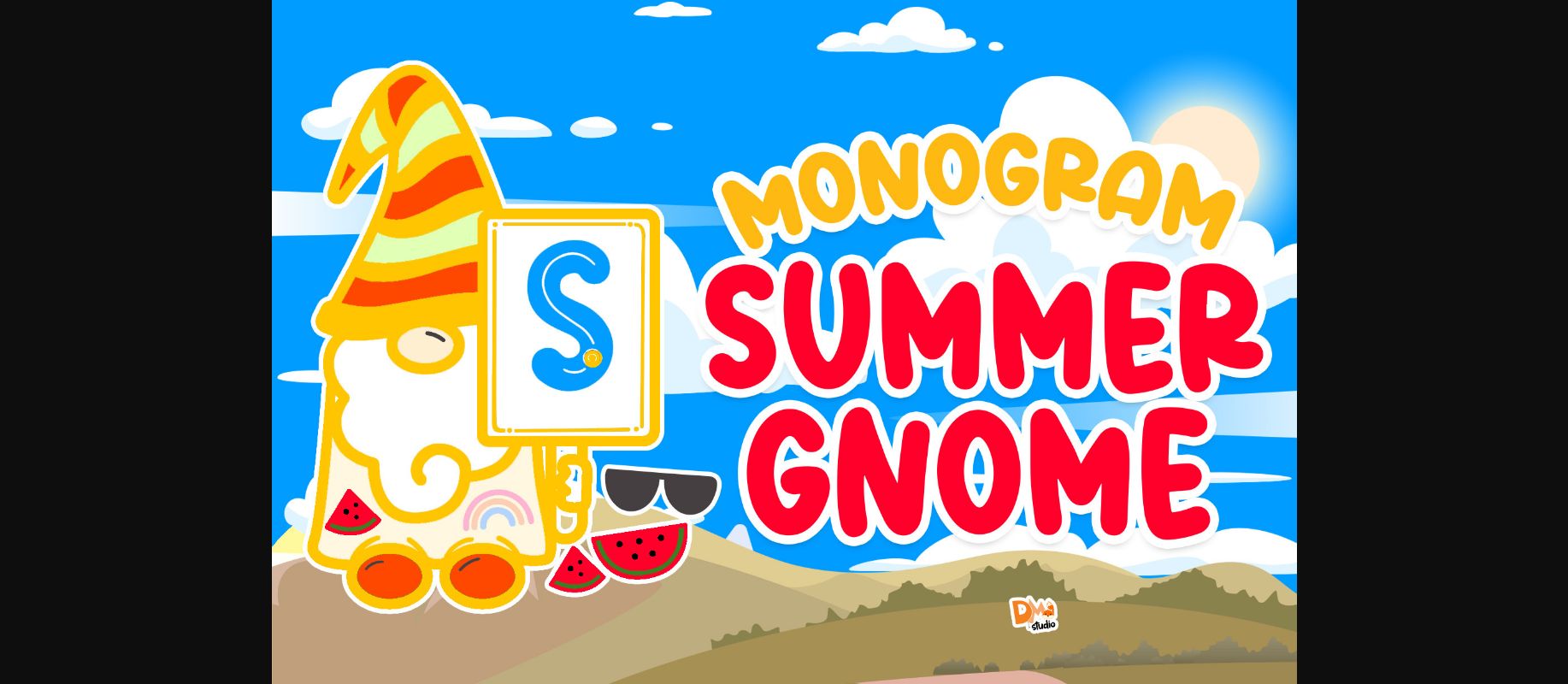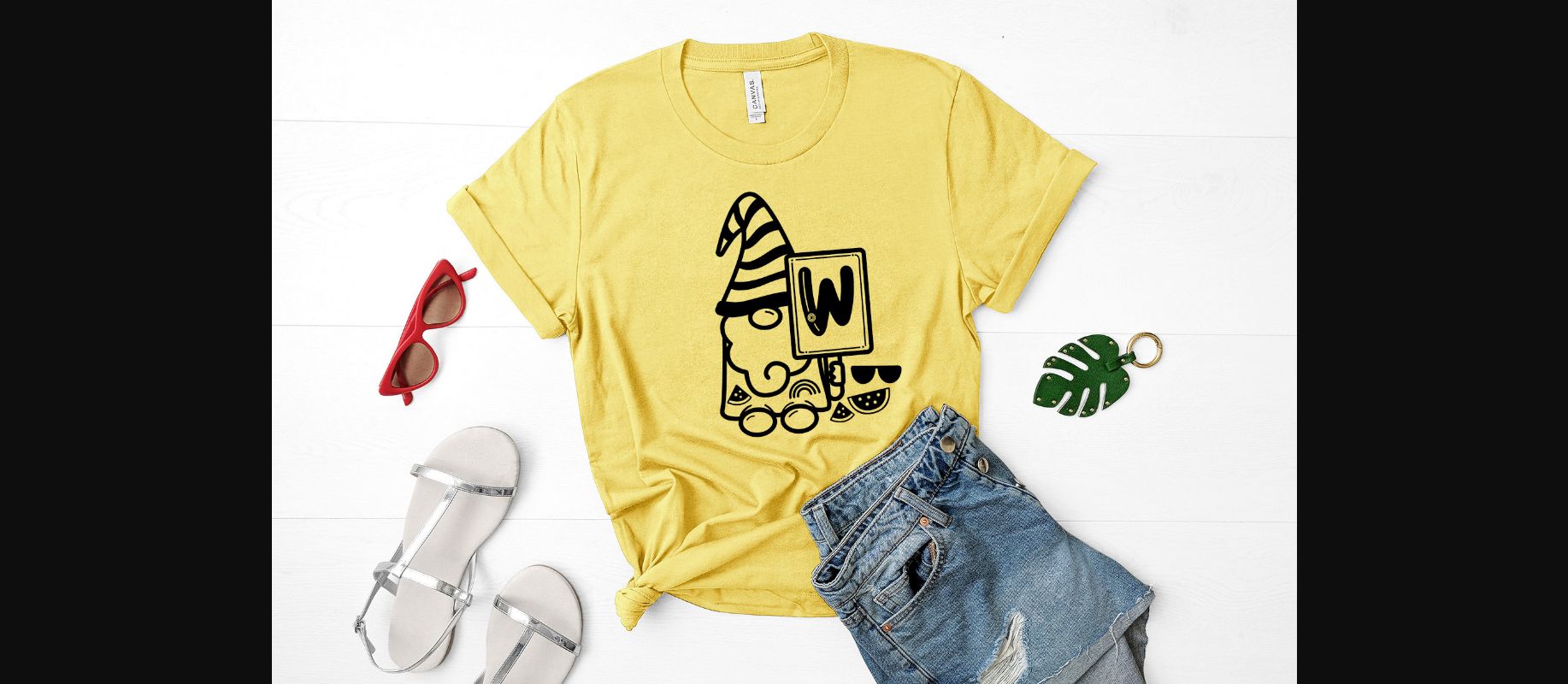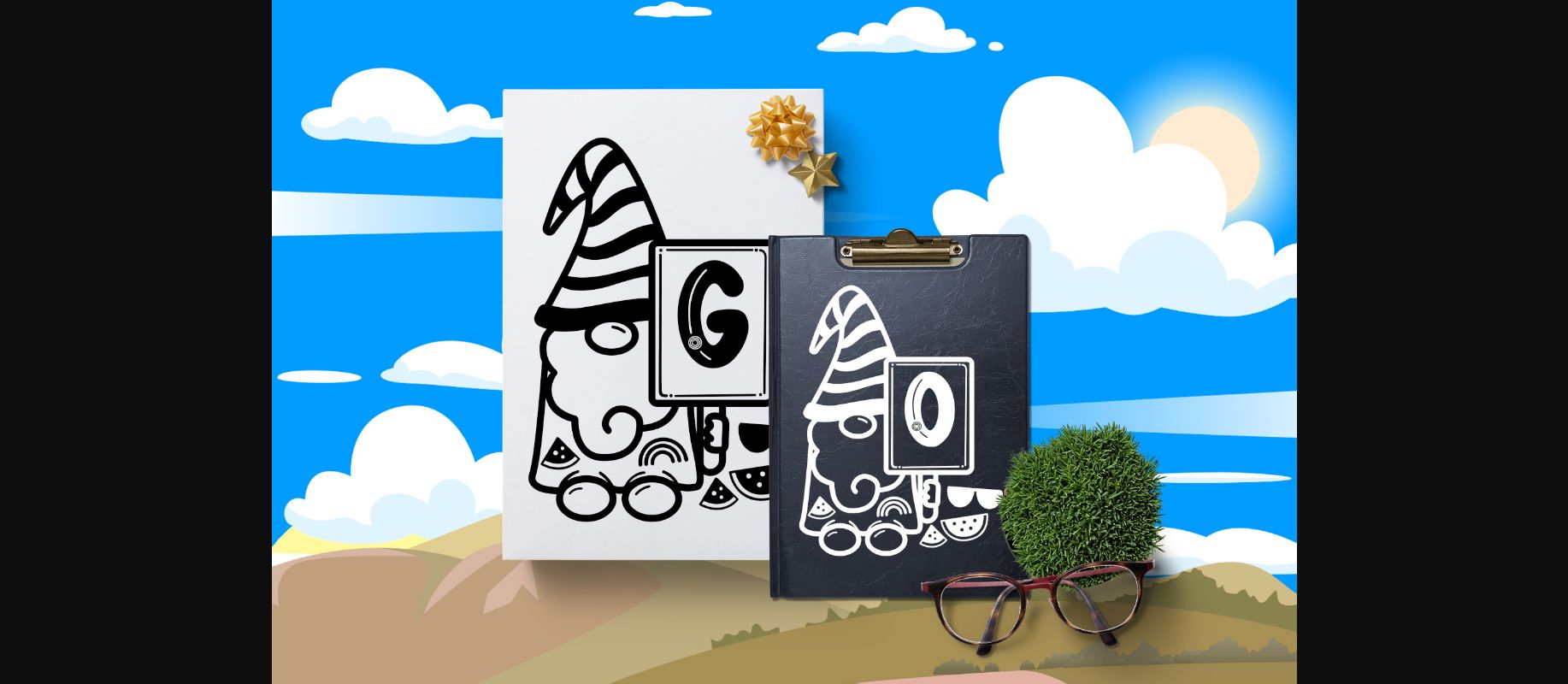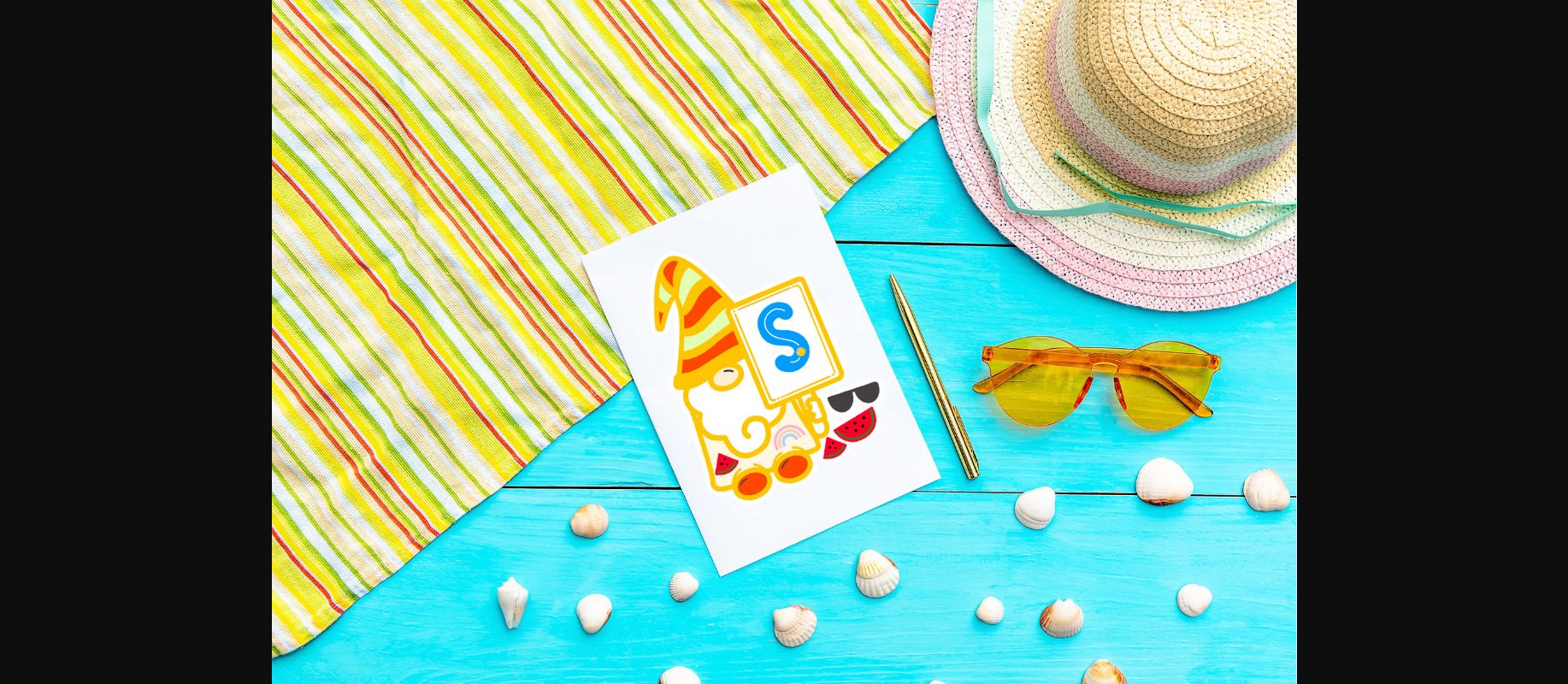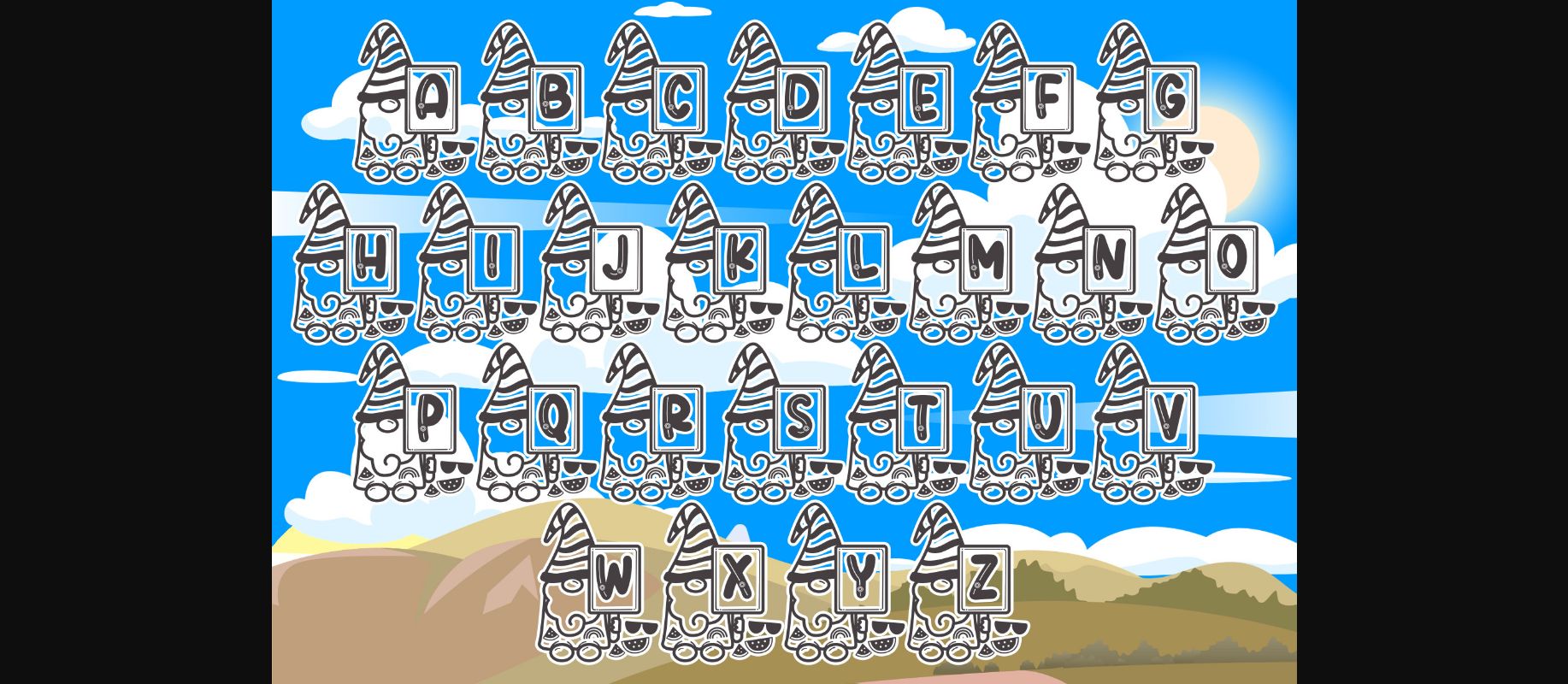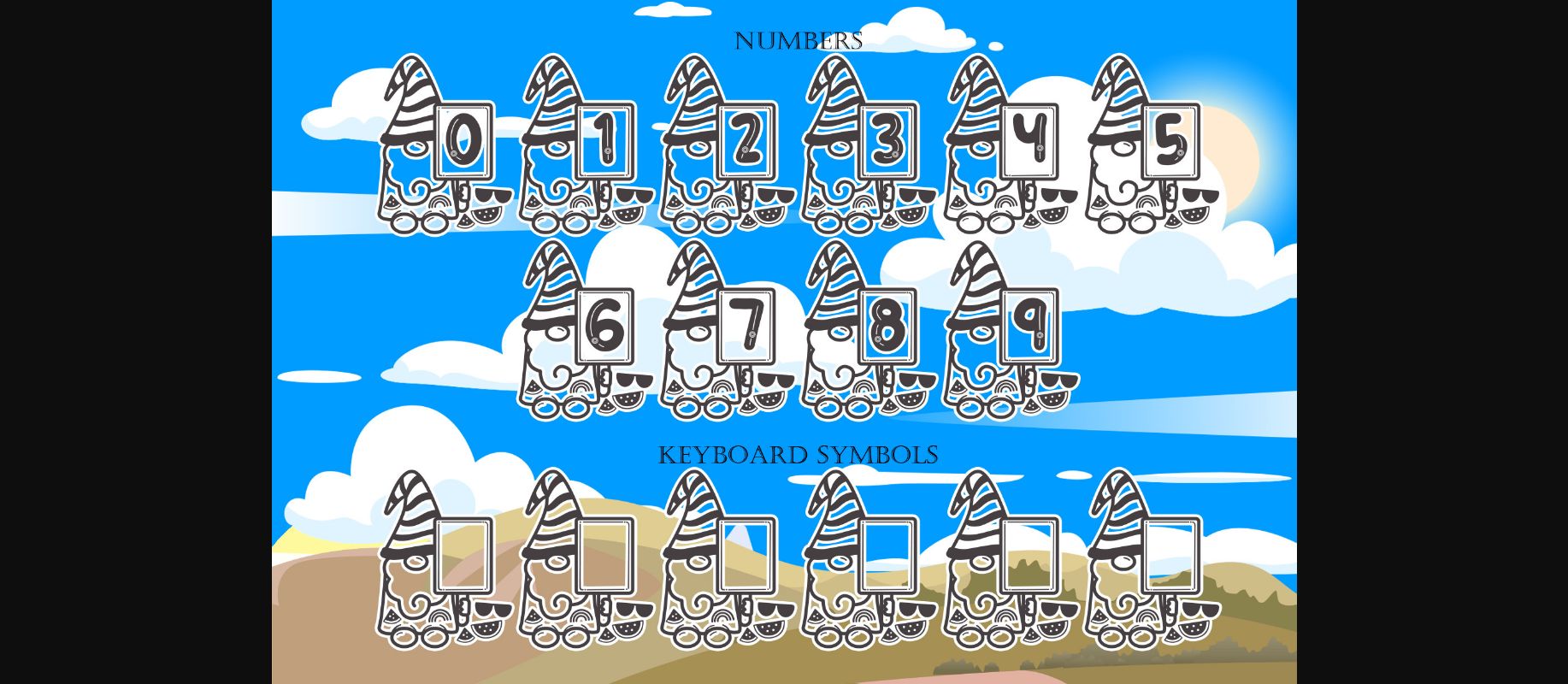
About Monogram Summer Gnome Font
Monogram Summer Gnome is a cute, quirky and original decorative font.
Whatever the topic, this font will be a wonderful asset to your font library, as it has the potential to enhance any creation.